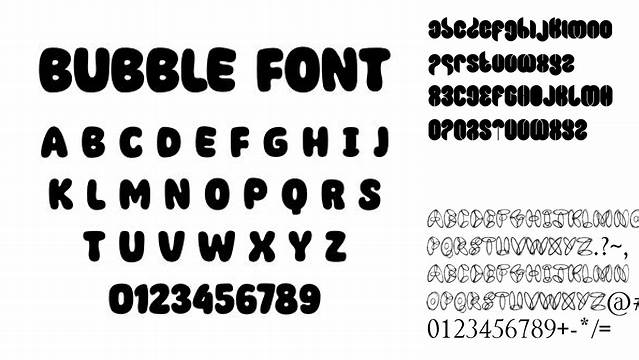
Hey guys! Are you looking to add a playful and whimsical touch to your designs? Look no further than bubble fonts! These fonts, with their rounded, soft, and inflated letterforms, can instantly inject fun and personality into any project. Whether you're designing a children's book, a party invitation, a website banner, or social media graphics, a well-chosen bubble font can make all the difference. In this comprehensive guide, we'll dive deep into the world of bubble fonts, exploring their characteristics, uses, and where you can find them for free in the TTF (TrueType Font) format. So, buckle up and get ready to explore the bubbly side of typography!
What are Bubble Fonts?
Bubble fonts, also known as balloon fonts or cartoon fonts, are characterized by their rounded, inflated, and often playful letterforms. Imagine letters that have been blown up like bubbles, and you'll get the general idea. These fonts often evoke a sense of fun, childhood, and lightheartedness. Their rounded shapes and soft edges make them visually appealing and easy to read, especially in shorter texts and headings. The charm of bubble fonts lies in their ability to convey a sense of joy and informality, making them a popular choice for a wide range of creative projects.
The appeal of bubble fonts stems from their unique aesthetic qualities. The rounded shapes and thick strokes create a sense of volume and three-dimensionality, making the letters appear almost tangible. This visual effect is particularly effective in headlines, posters, and other display applications where you want to grab the viewer's attention. The playful nature of bubble fonts also makes them ideal for projects targeting children or those with a youthful spirit. Think of birthday invitations, educational materials, and children's book covers – these are all areas where bubble fonts can truly shine. The versatility of bubble fonts extends beyond just their visual appeal. They also offer a wide range of stylistic variations, from simple and clean to highly stylized and decorative. This means that you can find a bubble font to suit almost any project, whether you're looking for something subtle and understated or bold and attention-grabbing. When choosing a bubble font, it's important to consider the overall tone and message you want to convey. A more rounded and playful font might be perfect for a children's party invitation, while a bolder and more geometric bubble font might be better suited for a website banner or logo design. By carefully selecting the right bubble font, you can ensure that your design effectively communicates its intended message and captures the attention of your target audience. In the world of typography, bubble fonts occupy a special niche, offering a unique blend of fun, style, and versatility. Their ability to evoke a sense of playfulness and informality makes them a valuable tool for designers looking to add a touch of personality to their projects. So, the next time you're working on a design that needs a little extra charm, consider the magic of bubble fonts and see how they can transform your work.
Uses of Bubble Fonts
Bubble fonts are incredibly versatile and can be used in a wide variety of design projects. Their playful and friendly nature makes them particularly well-suited for designs targeting children, such as children's books, toys, and birthday invitations. However, their appeal extends beyond just kids' stuff! They can also be used to add a touch of fun and informality to more mature projects, such as posters, flyers, and social media graphics.
One of the most common uses of bubble fonts is in children's books and educational materials. The rounded, friendly letterforms are easy for young children to read and can help to make learning more fun and engaging. The visual appeal of bubble fonts can also help to capture children's attention and keep them interested in the material. In addition to books, bubble fonts are also frequently used in other educational materials, such as worksheets, flashcards, and classroom decorations. The playful nature of the fonts can help to create a more positive and welcoming learning environment. Beyond the realm of education, bubble fonts are also a popular choice for party invitations, especially for children's birthday parties. The whimsical style of the fonts perfectly complements the celebratory atmosphere, and the rounded shapes can help to convey a sense of fun and excitement. Bubble fonts can also be used on party decorations, such as banners and signs, to create a cohesive and festive look. But the versatility of bubble fonts doesn't stop there. They can also be used in a variety of other design projects, such as posters, flyers, and social media graphics. A well-chosen bubble font can add a touch of personality and playfulness to these designs, making them stand out from the crowd. For example, a bubble font might be used on a poster for a community event to create a friendly and inviting atmosphere. Or, it could be used on a flyer for a local business to add a touch of fun and informality. On social media, bubble fonts can be used to create eye-catching graphics and captions that grab the attention of viewers. Whether you're promoting a product, sharing an announcement, or simply trying to brighten someone's day, a bubble font can help to get your message across in a fun and engaging way. In summary, bubble fonts are a versatile and playful typeface that can be used in a wide variety of design projects. Their friendly nature and eye-catching appearance make them a popular choice for both children's and adult-oriented designs. So, the next time you're looking for a font that can add a touch of fun to your project, consider the possibilities of bubble fonts.